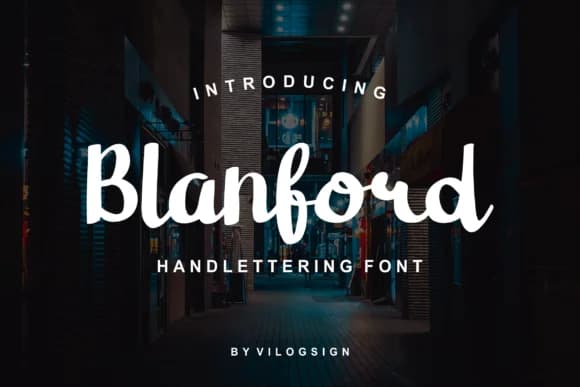
Blanford by Vilogsign is a bold, handwritten script that brings genuine personality and dynamic movement to any creative project. With its striking letterforms and energetic stroke weight, it captures the authentic feel of hand-lettering while maintaining excellent legibility across various applications and sizes. The font's confident character makes it instantly recognizable, giving designs a distinctive visual presence that commands attention in both print and digital spaces.
This script excels in specialized applications where distinctive personality and character matter most. It's particularly well-suited for wedding invitation suites, where the bold letterforms create memorable first impressions for milestone celebrations and special events. Luxury cosmetics packaging, upscale restaurant menus, and custom band merchandise all benefit significantly from Blanford's unmistakable visual identity and contemporary edge. The font also shines when creating authentic branding for independent lifestyle businesses, bookstore signage and window displays, or statement-making social media graphics designed to stand out in crowded digital feeds. Its natural flow and distinctive stroke variation make it equally at home in editorial design projects, album artwork and covers, or personalized stationery systems.
Blanford Font is a script font that shines as a display or heading face. Pair it with a clean sans-serif or serif font for body text β the contrast creates a clear hierarchy while the two styles stay balanced and easy to read.
Blanford Font
by Vilogsign